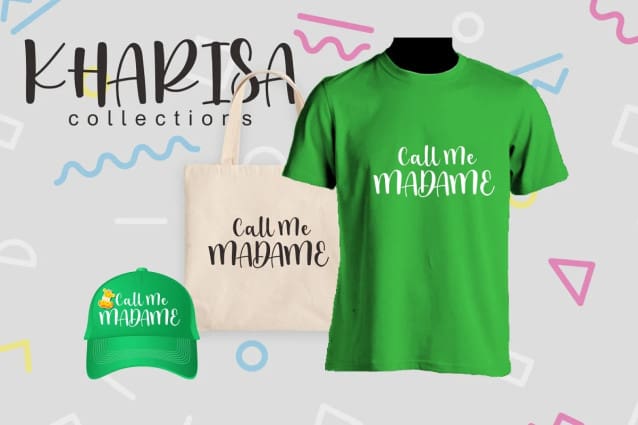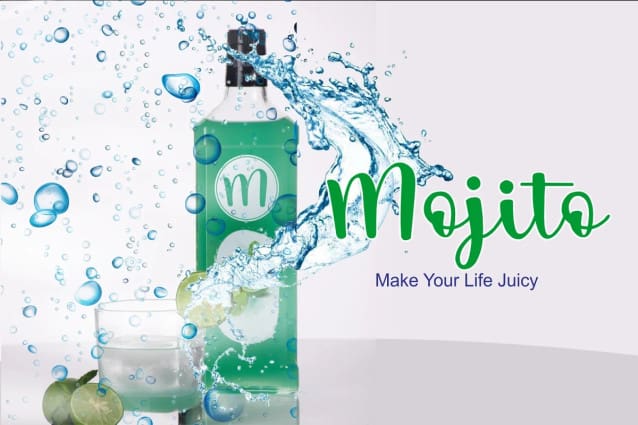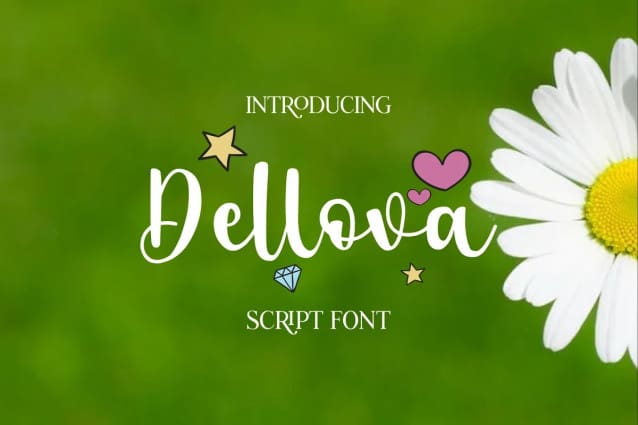
Dellova Script Font
Dellova Script Font, is a simple and friendly handwritten font. Whether you’re using it for crafts, digital design, stickers, invitations, logos, presentations, or creating greeting cards, this font has the potential to become your favorite go-to font, whatever the occasion.